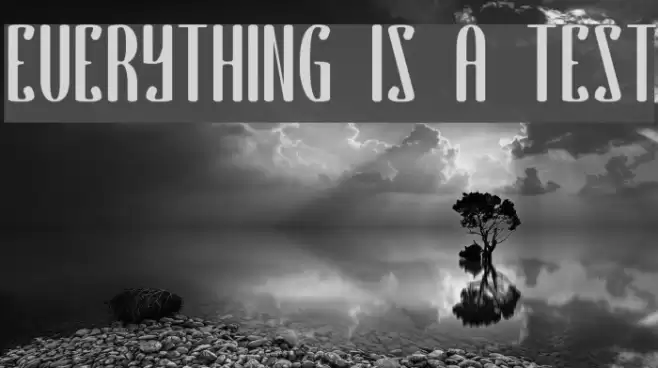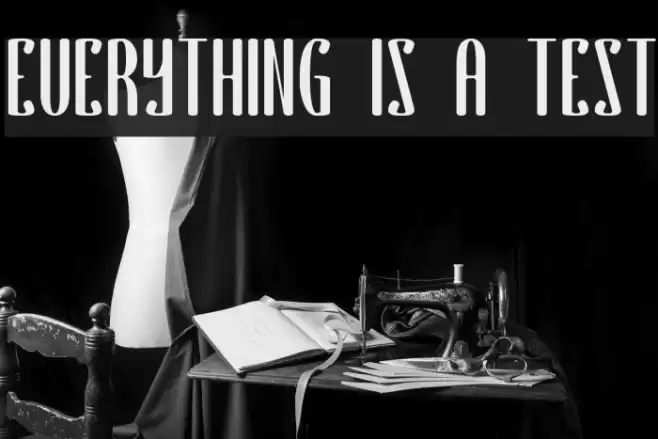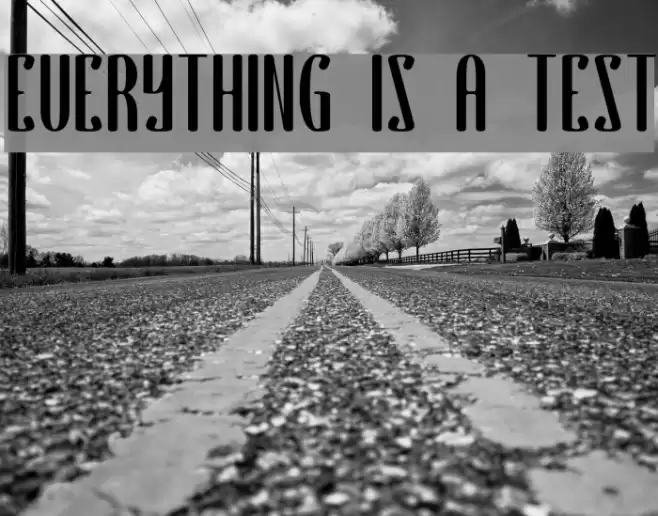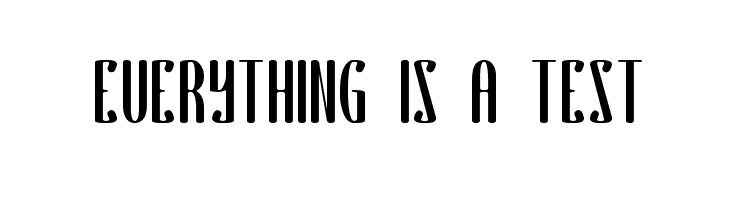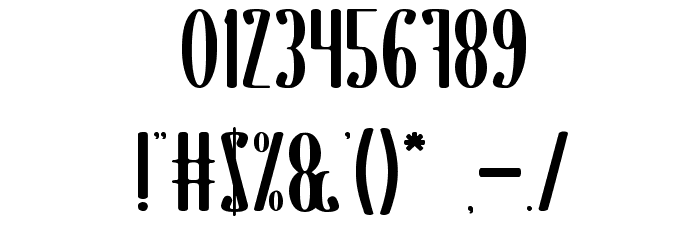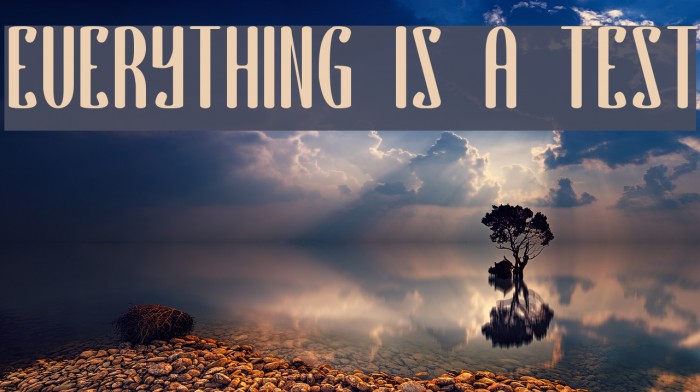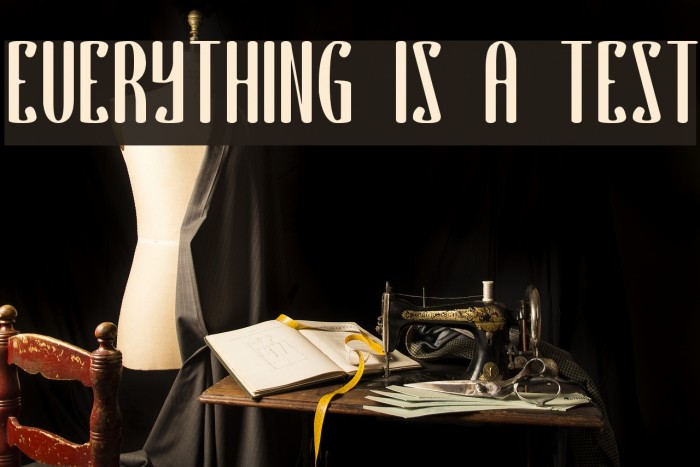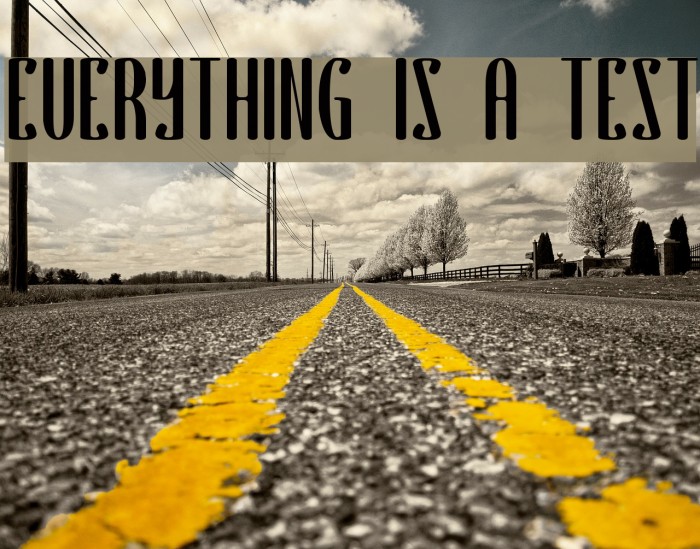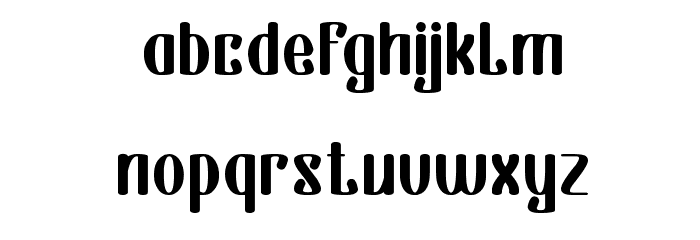
EVERYTHING IS A TEST Font
EVERYTHING IS A TEST Description
This font features a playful and bold design, characterized by its thick strokes and rounded edges. The uppercase letters are tall and slightly condensed, giving a strong presence, while the lowercase letters maintain a consistent height with a whimsical touch. The numbers are equally bold, ensuring readability and uniformity across the set. Special characters are designed with the same boldness, integrating seamlessly with the alphanumeric characters. This font exudes a modern and friendly vibe, making it suitable for various creative applications.
A bold, playful font with rounded edges and a modern vibe from Uncategorized fonts.